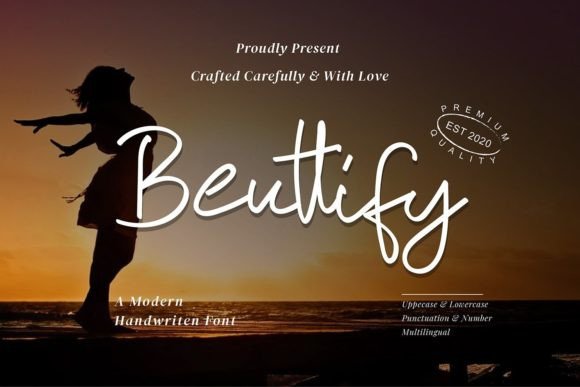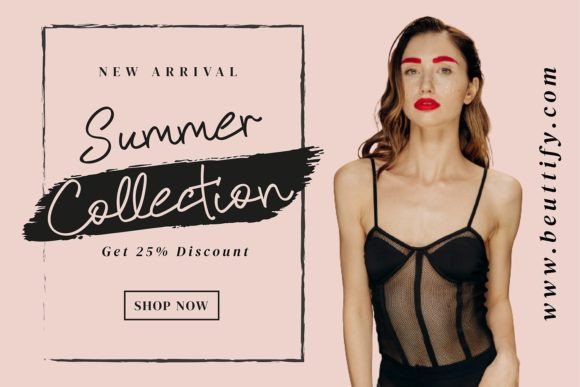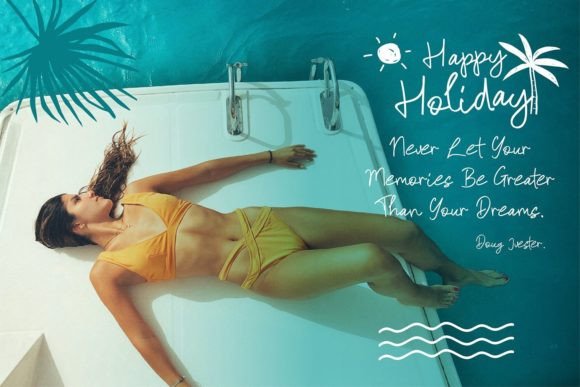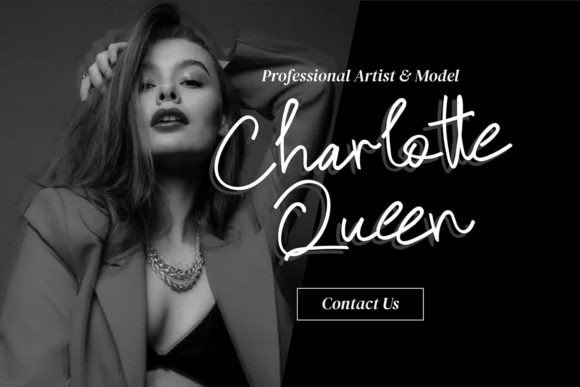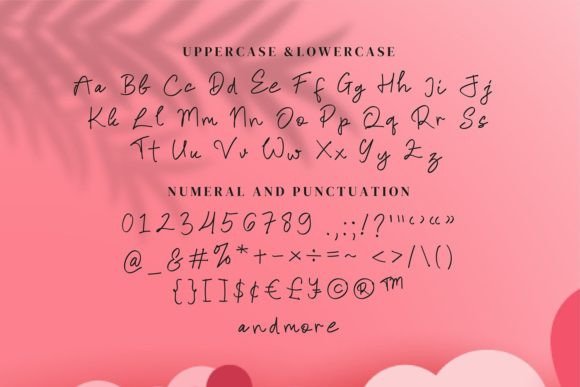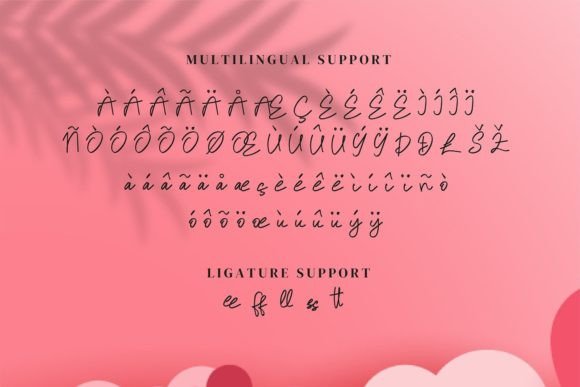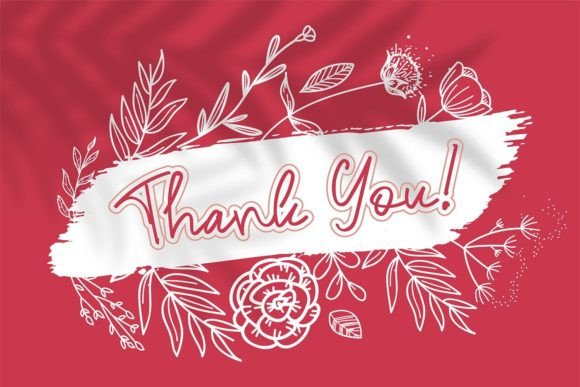
Beuttify Font
About Beuttify Font
Beuttify is not just a font; it’s a dazzling script that adds a touch of brilliance to your creative endeavors. Meticulously crafted with a keen eye for detail, this font stands out with its intricacy and charm. Whether your project revolves around elegance, vibrancy, or any other theme, Beuttify is a remarkable asset to your font library, capable of enhancing any creation with its captivating presence.
The craftsmanship of Beuttify is evident in its neat, detailed design. Each letter is a work of art, contributing to an overall aesthetic that is both refined and eye-catching. This font is a testament to the idea that typography is not merely a means of communication but an integral part of the visual experience.
Whatever the topic or theme of your project, Beuttify has the versatility to adapt and elevate. Its dazzling script is suitable for a wide range of applications, from invitations and branding to advertisements and creative displays. The font effortlessly becomes a visual centerpiece, capturing attention and leaving a lasting impression on your audience.
As a wonderful asset in your font library, Beuttify is more than just a set of characters—it’s a design tool that brings a touch of sophistication and allure to your creations. Its potential to enhance goes beyond the ordinary; it transforms text into an expressive element that contributes to the overall beauty of your design.
In summary, Beuttify is a font that transcends the ordinary and enters the realm of extraordinary. Embrace its dazzling script, and let it become the shining star in your font collection, ready to infuse your projects with a touch of magic and visual appeal.